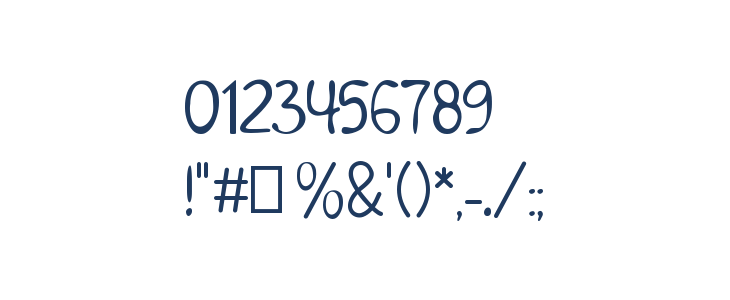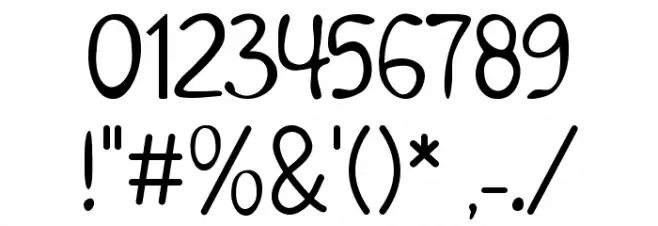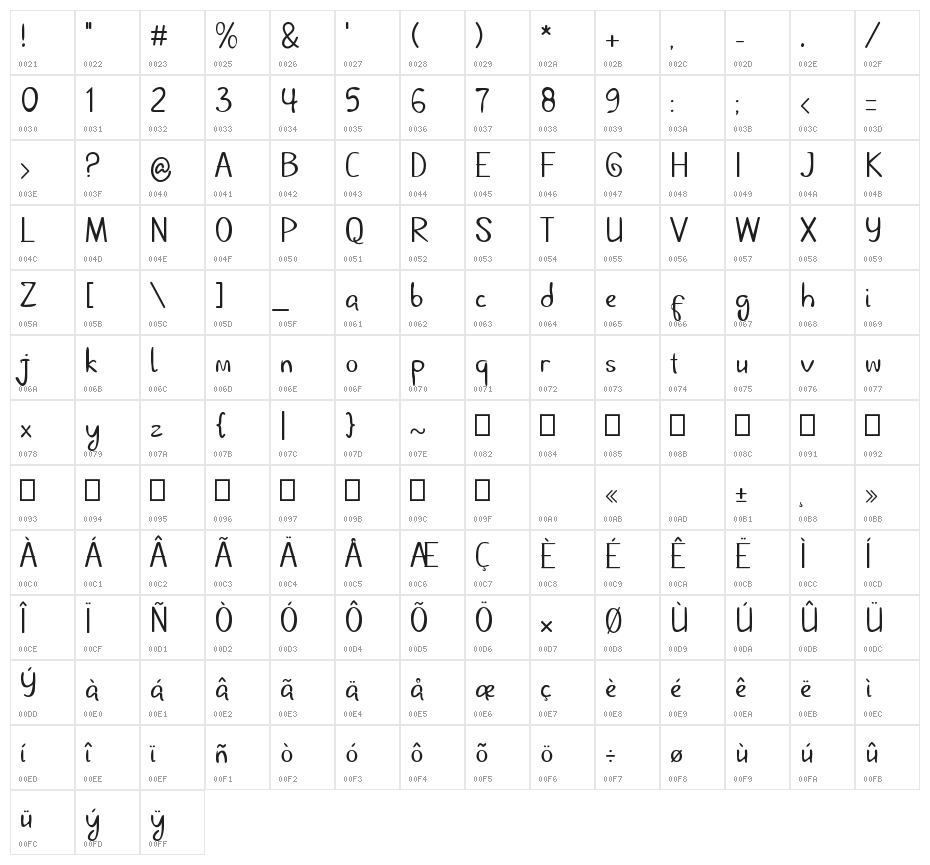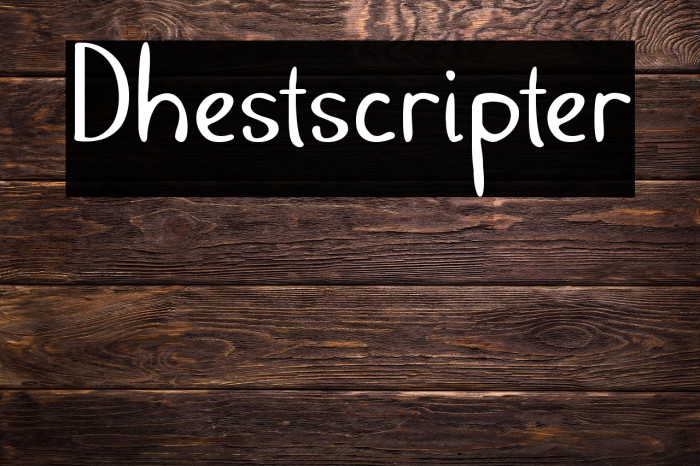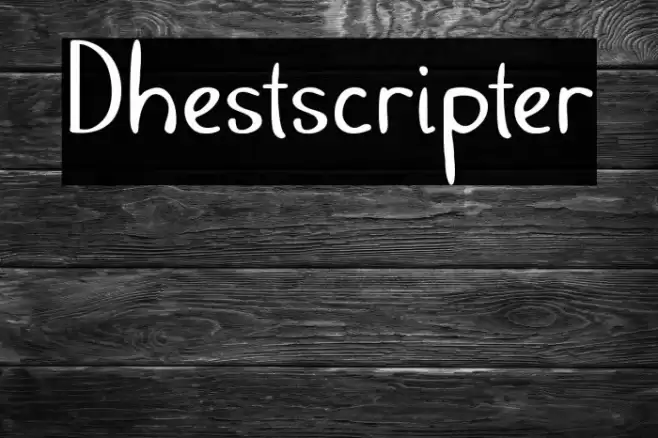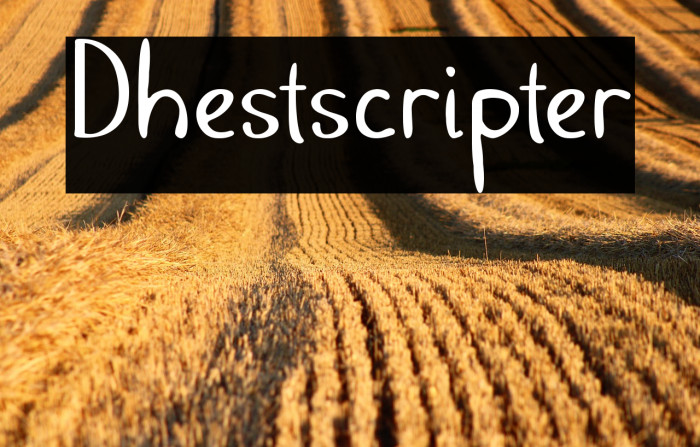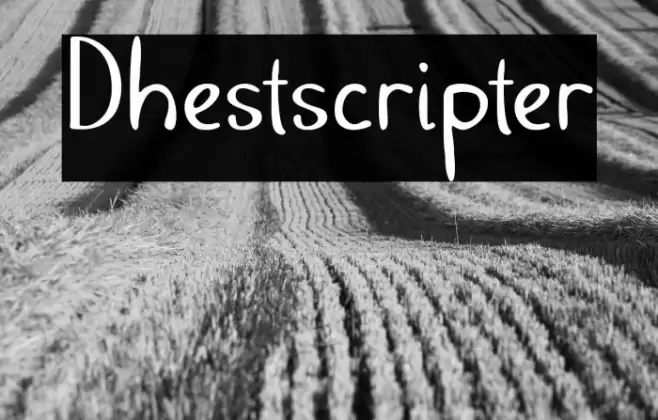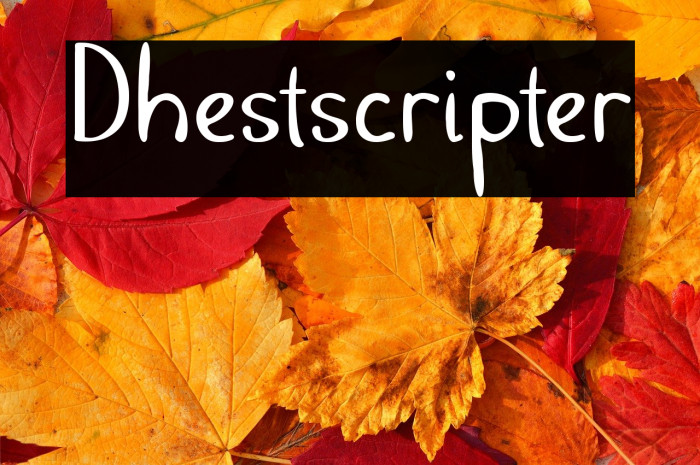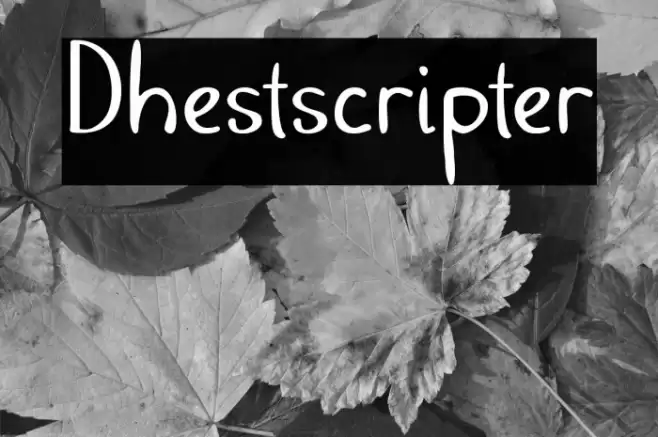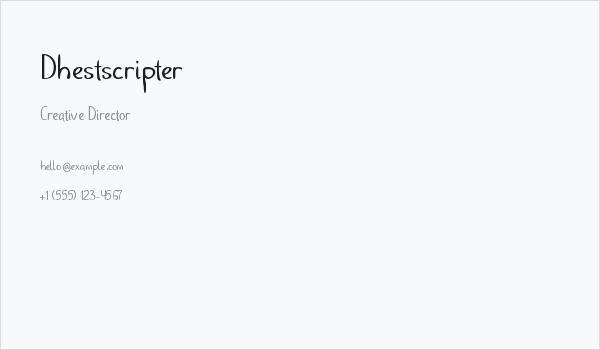
Dhestscripter Font
Dhestscripter Description
This font features a playful and whimsical style, characterized by its rounded and slightly irregular letterforms. The uppercase letters are bold and prominent, while the lowercase letters exhibit a more casual, handwritten appearance. The numbers are consistent with the overall playful theme, maintaining a balance between readability and style. Special characters are integrated seamlessly, adding to the font's versatility. The strokes are smooth, with a medium contrast that enhances the font's legibility without compromising its decorative appeal.